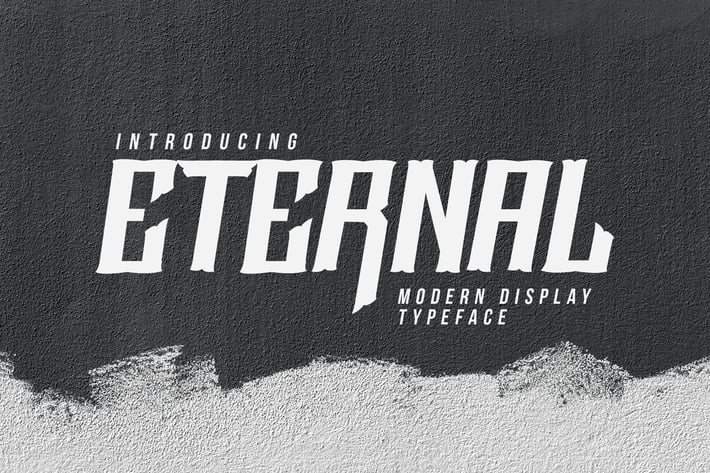
Eternal Font
Eternal Font is a handmade display font with the classy style and strong line. It is suitable for any design needs. Thank you for grab this font in your collections! hope you enjoy with Eternal Font.